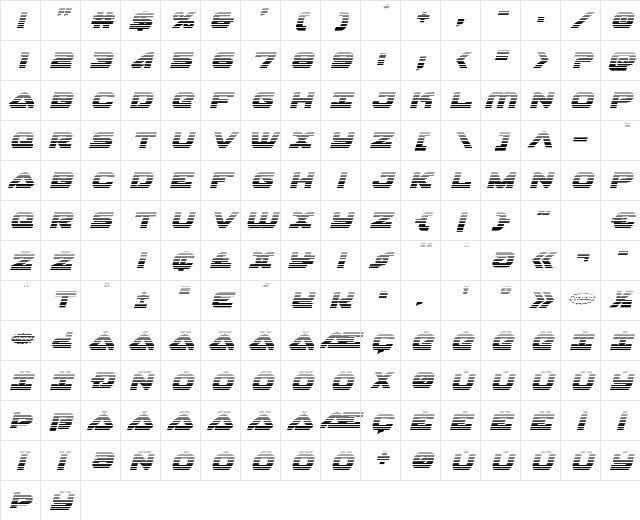
Skyhawk Scanlines Italic is a composed and adaptable typeface that performs quietly and consistently across a wide range of design contexts. The slanted form adds forward momentum and visual energy.